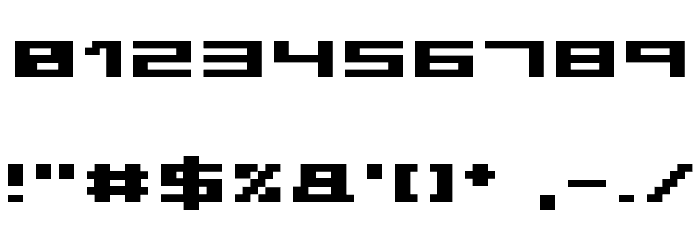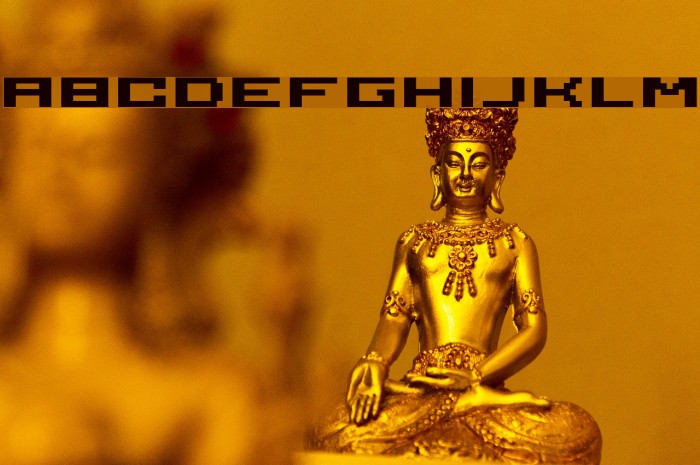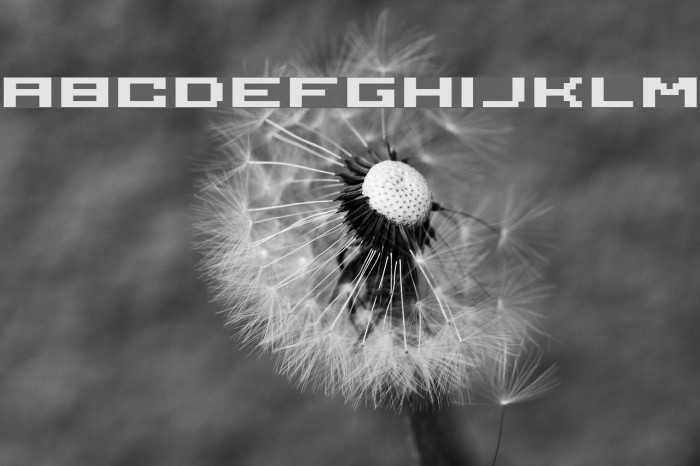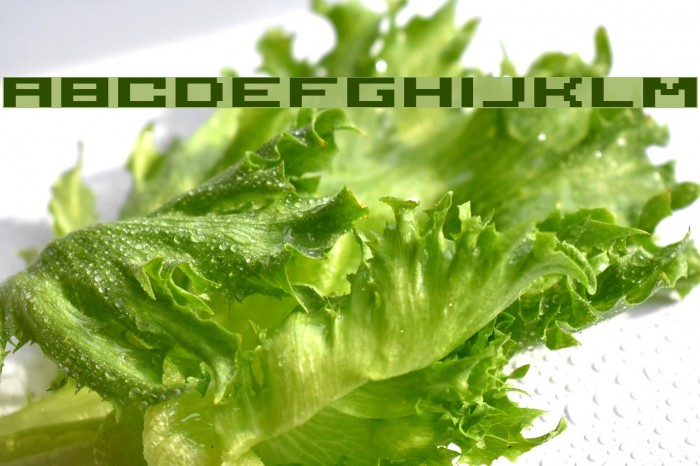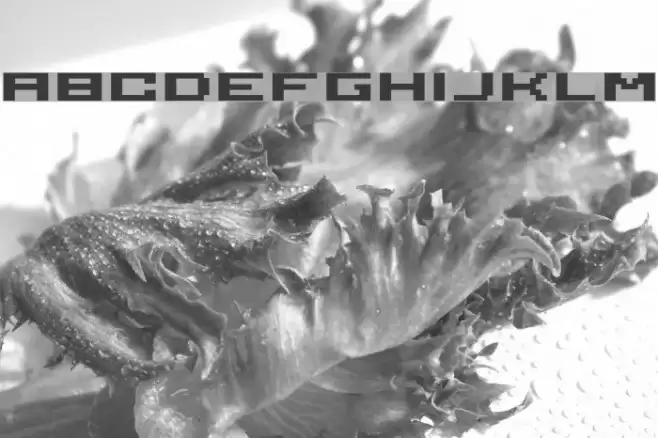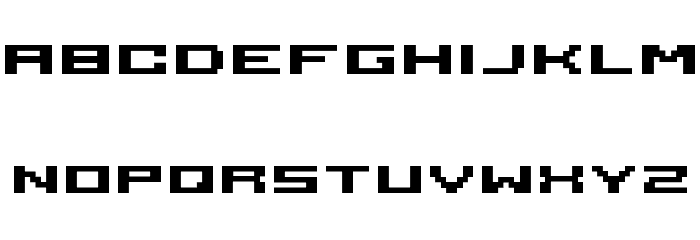
serious4b Font
serious4b Description
This font features a bold, geometric design with a pixelated, blocky appearance. Each character is constructed with sharp, angular lines, giving it a digital, retro feel reminiscent of early computer graphics or video games. The uniformity in height and width across characters creates a cohesive and structured look. The font's simplicity and clarity make it highly legible, even at smaller sizes. Its distinct style is both modern and nostalgic, capturing the essence of digital typography from the 1980s. The consistent stroke weight and lack of curves contribute to its unique, tech-inspired aesthetic.